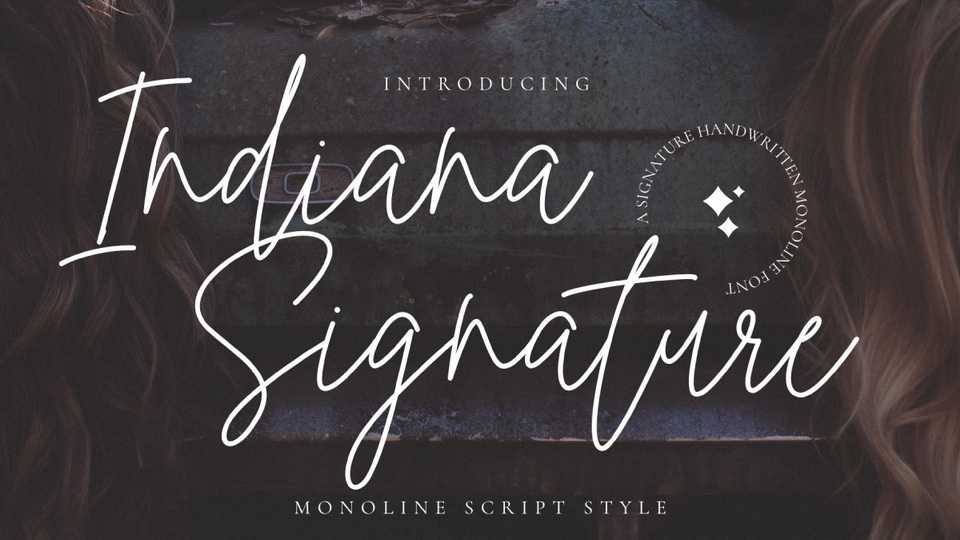
Download Indiana Signature font, a simple and easy-to-read typeface with an elegant touch and monoline script that you can use to perfect your design.
Designer: Picky Labs